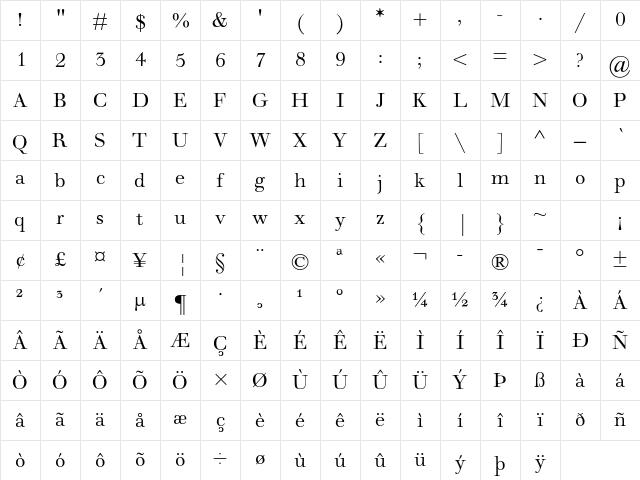
Walbaum MT Std Regular
Design Context for Walbaum MT Std
Walbaum MT Std is a composed and adaptable typeface that performs quietly and consistently across a wide range of design contexts.
Pro Tip: Use Walbaum MT Std in both headline and body roles to test its range before committing to a single application.